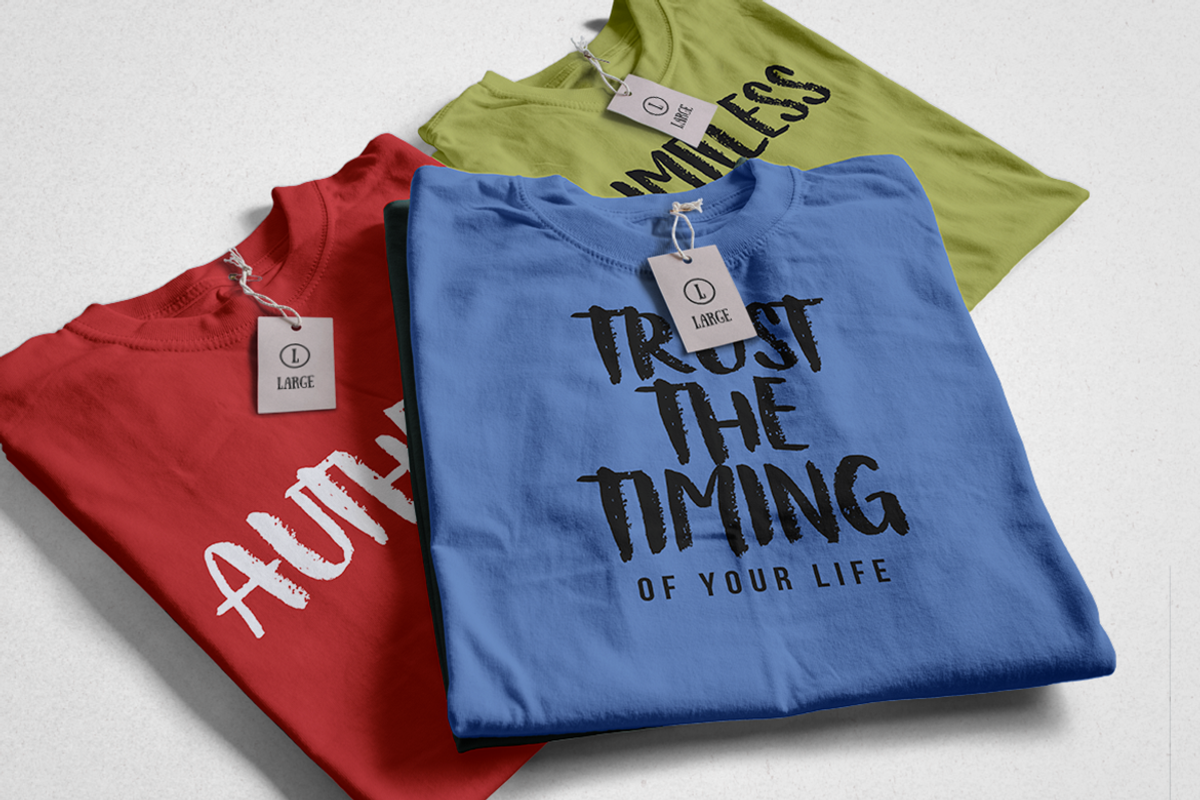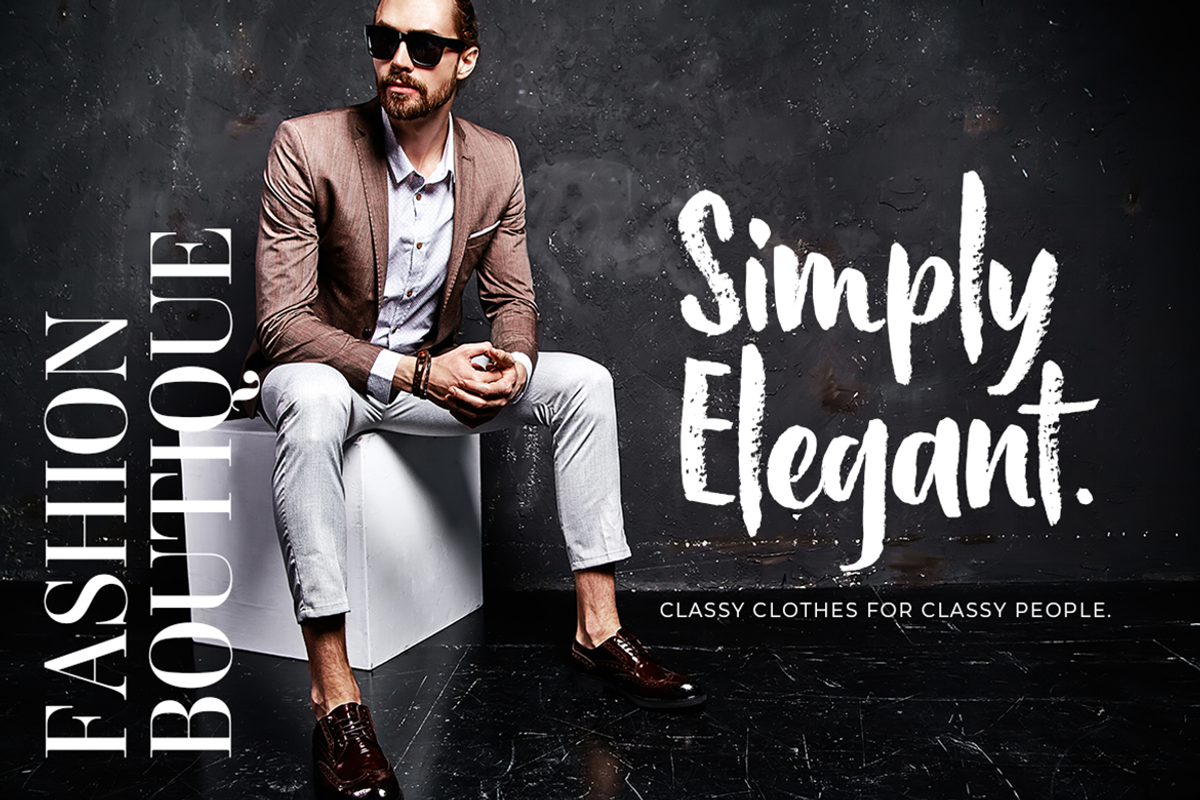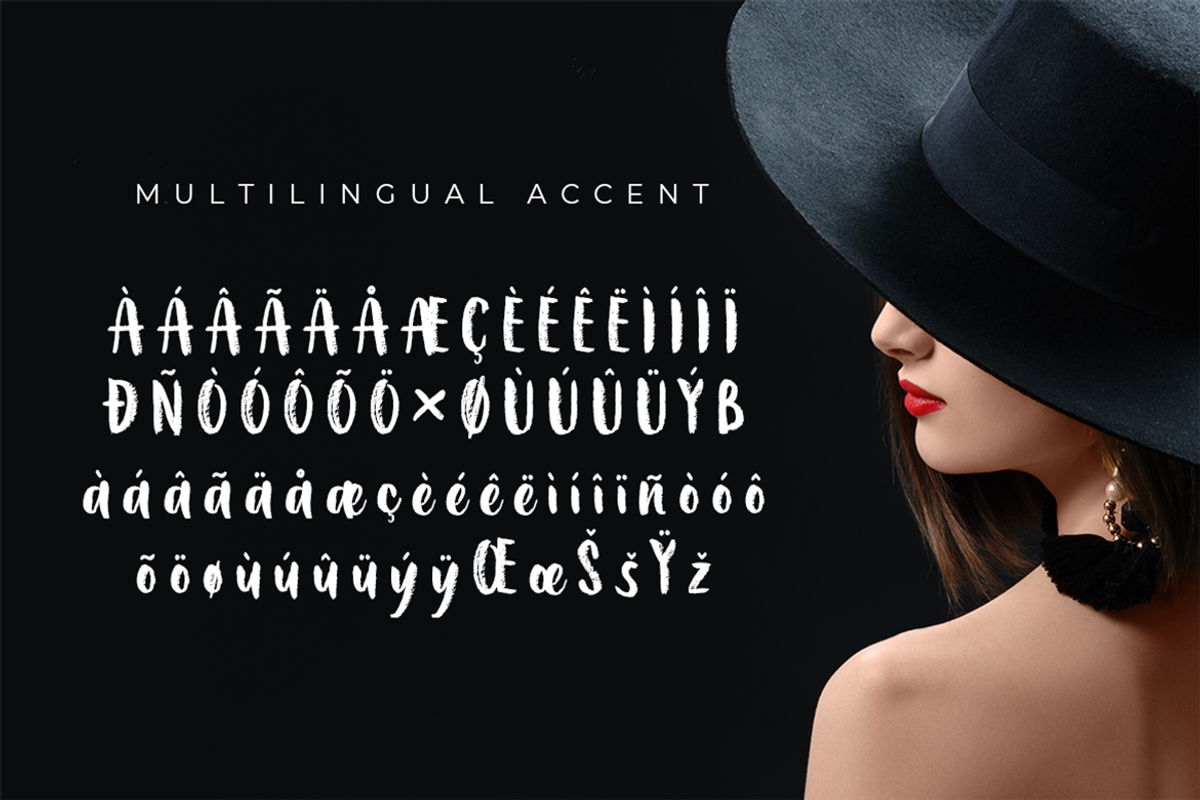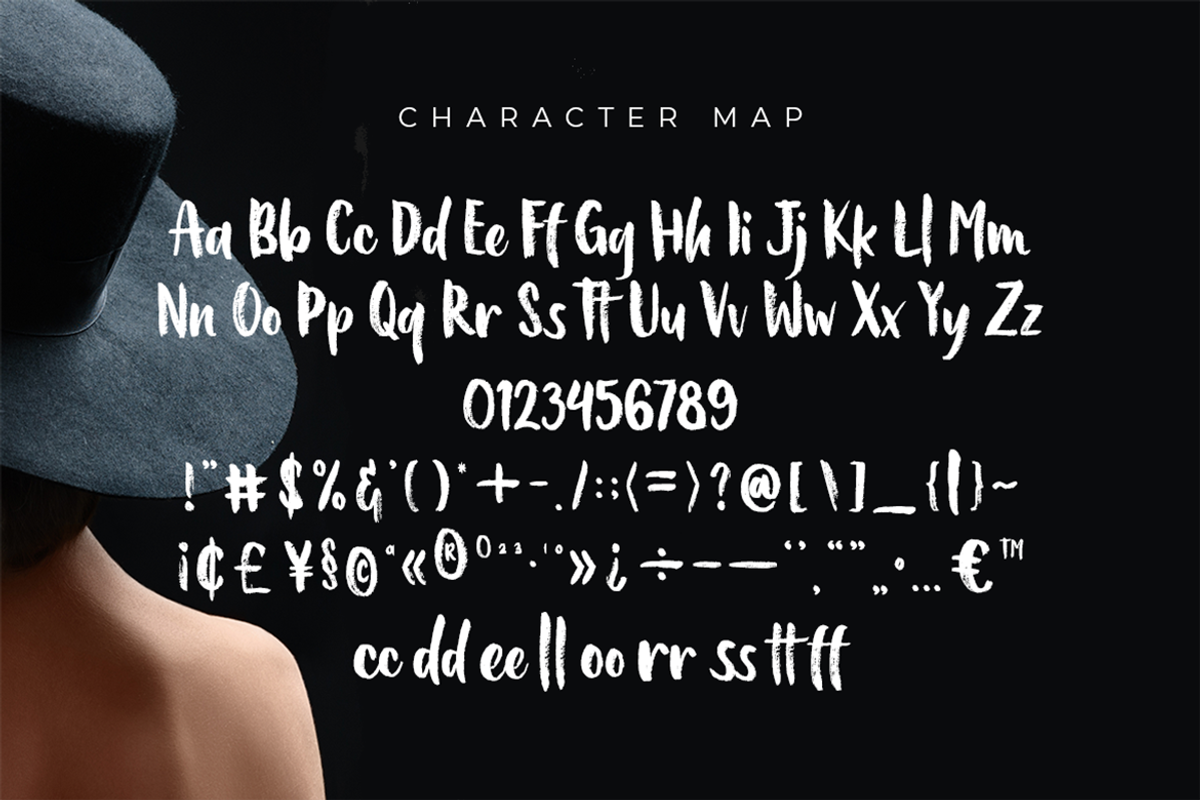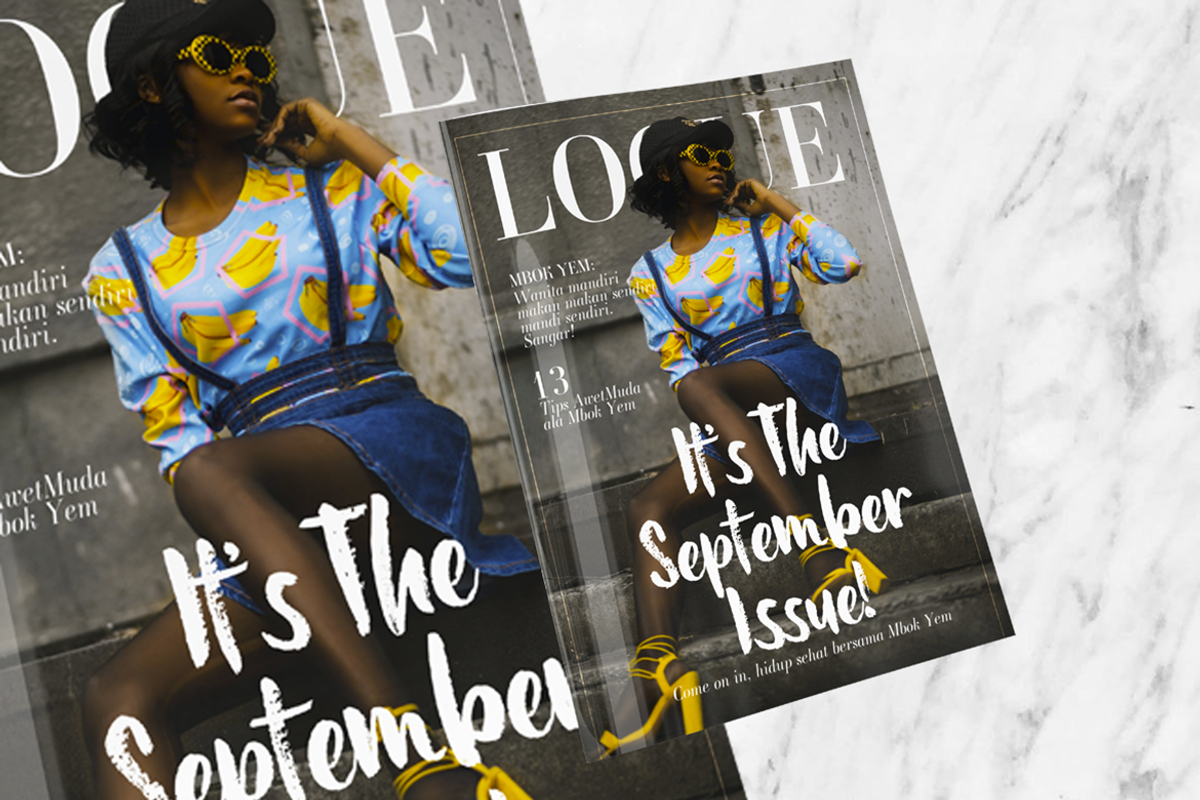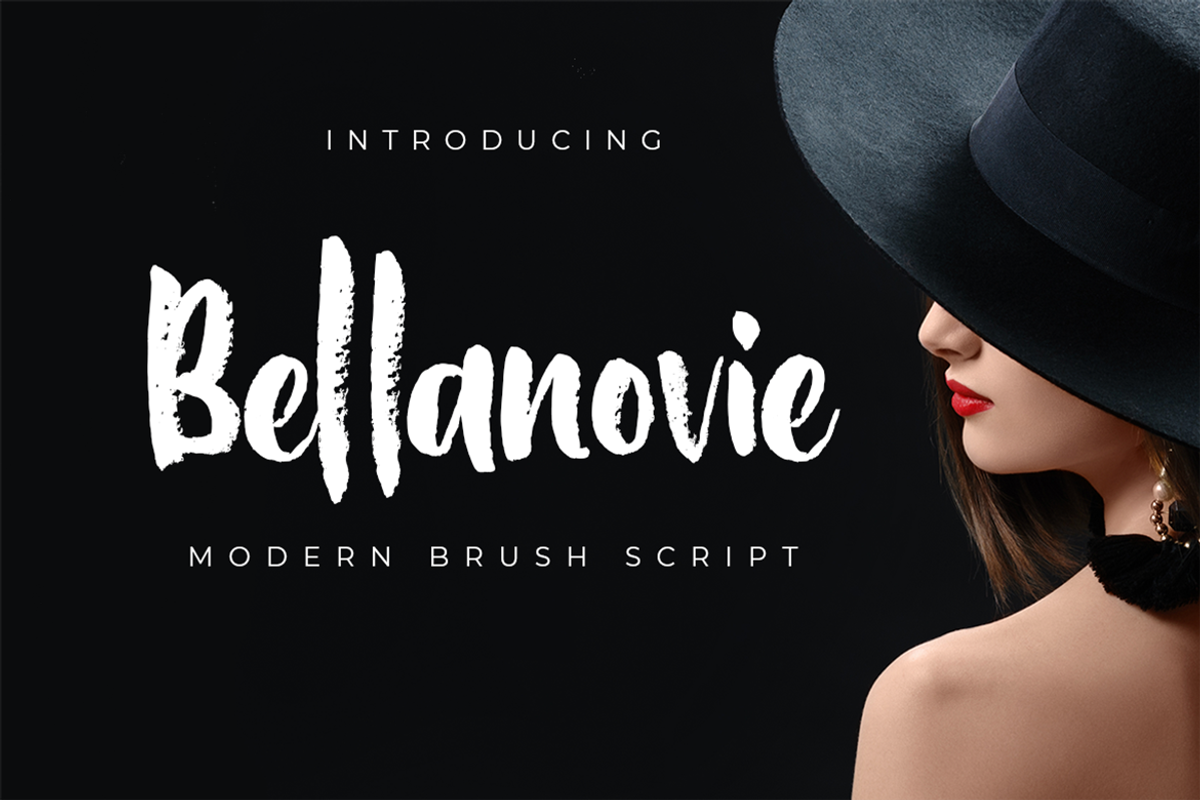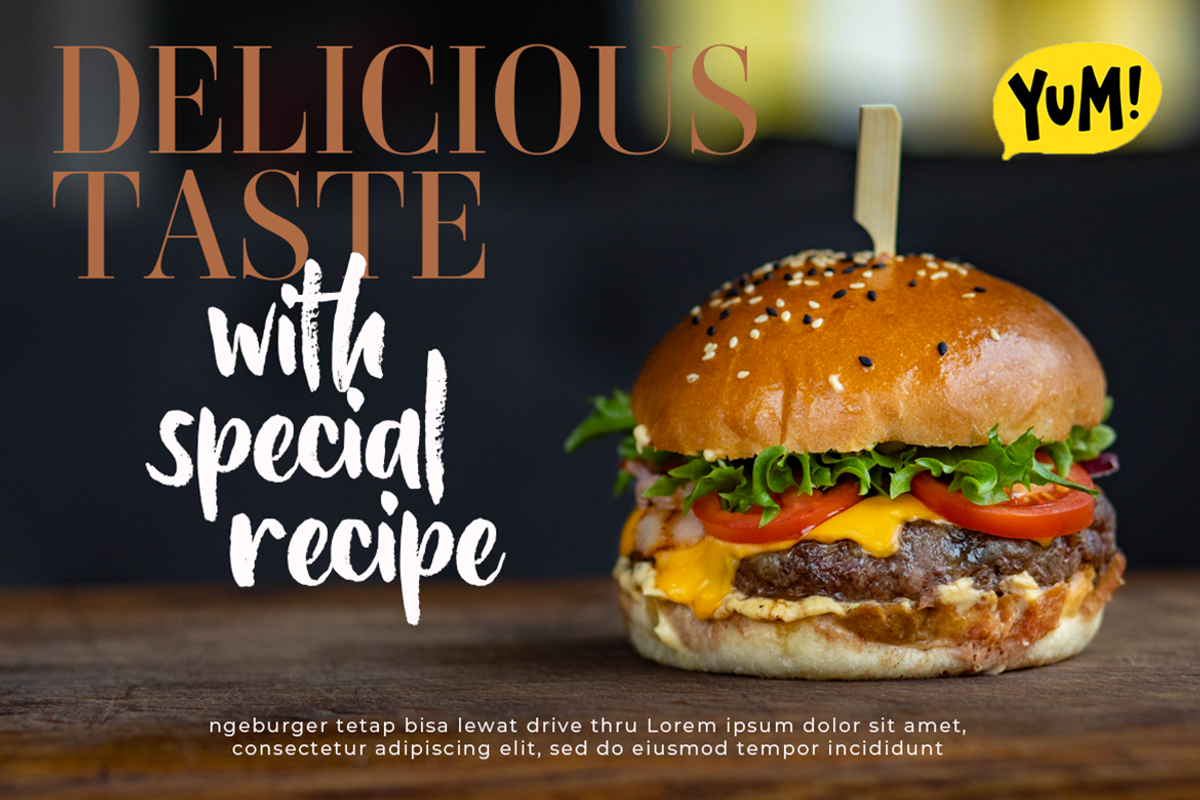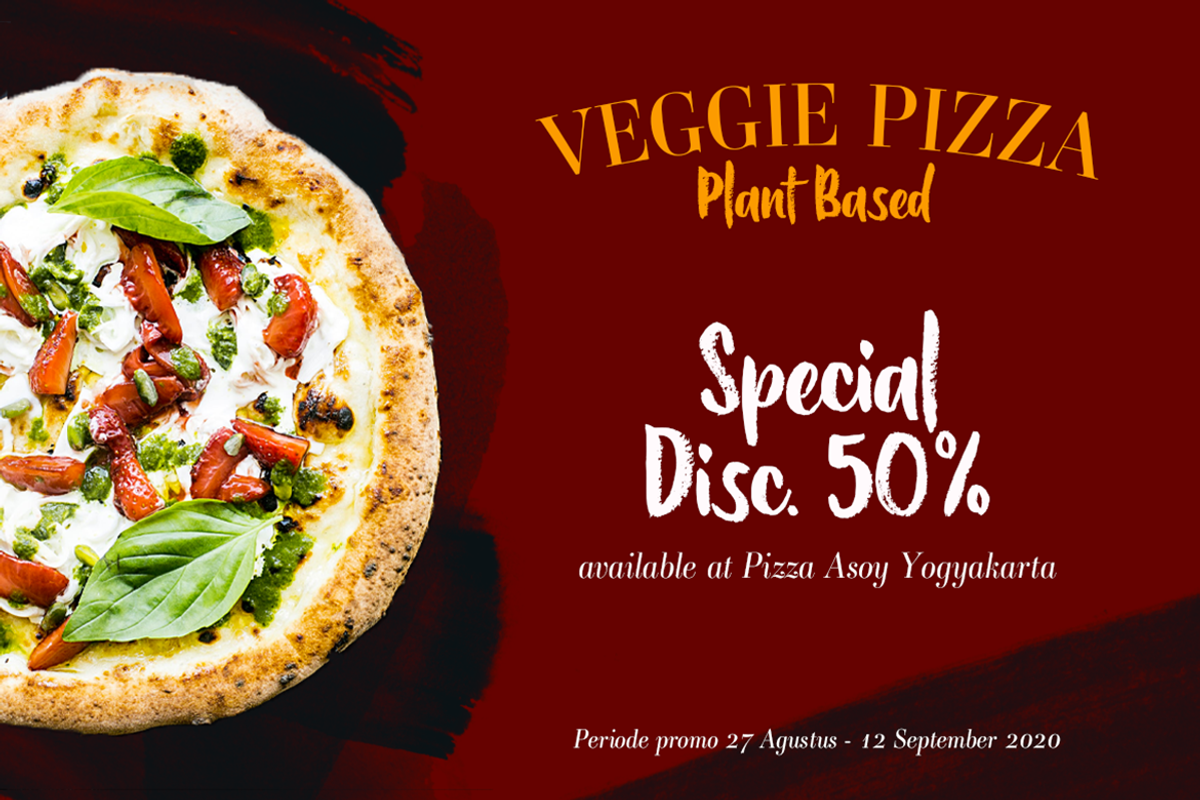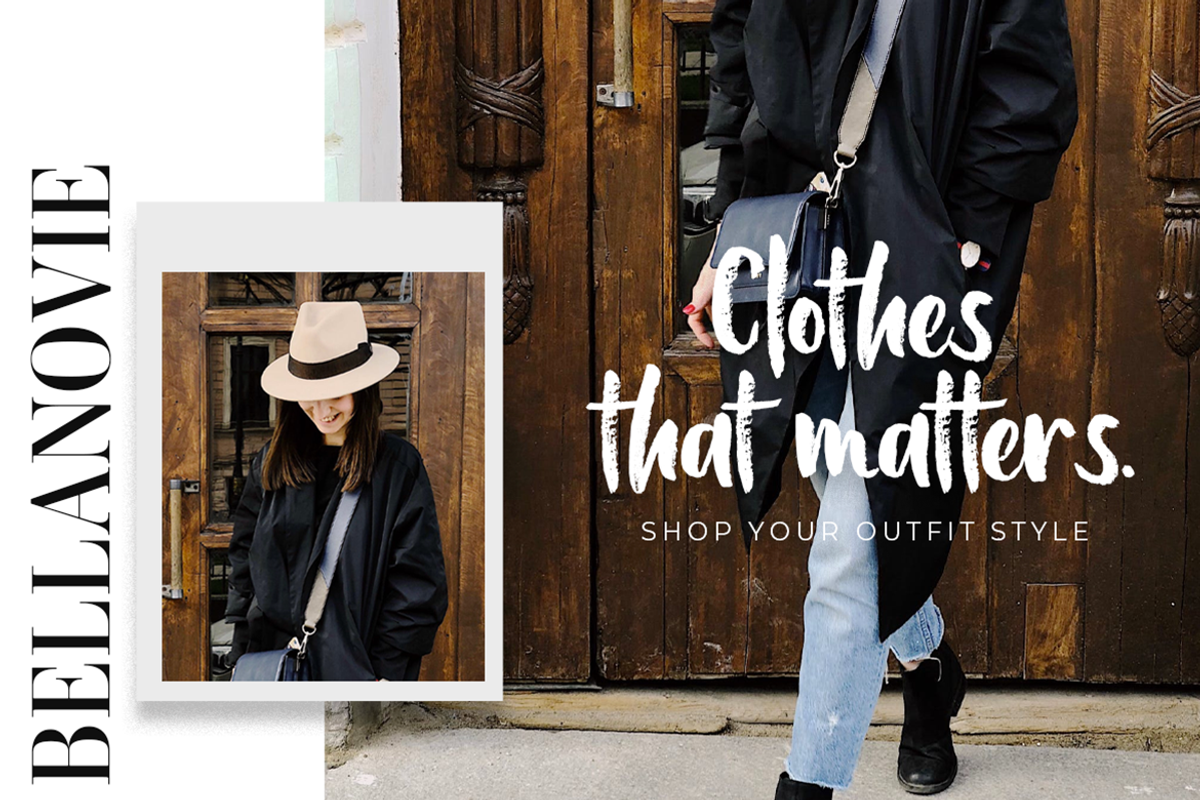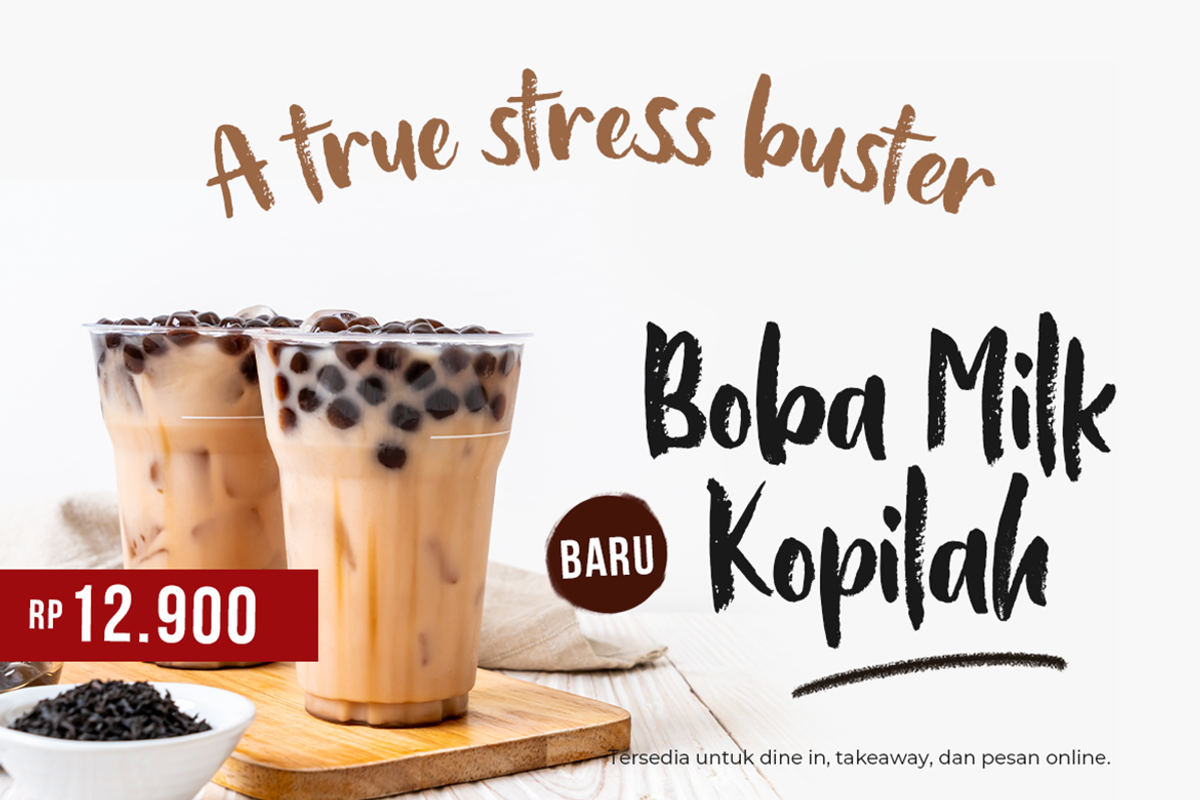
Bellanovie – Modern Brush Script
Bellanovie is a handwritten font with a chalk texture. It is suitable for promotional designs, labels, packaging, branding, logotypes and much more.